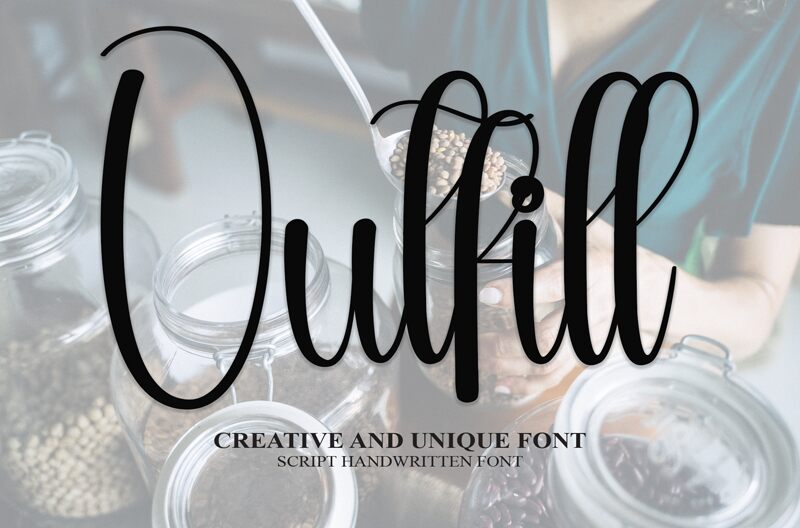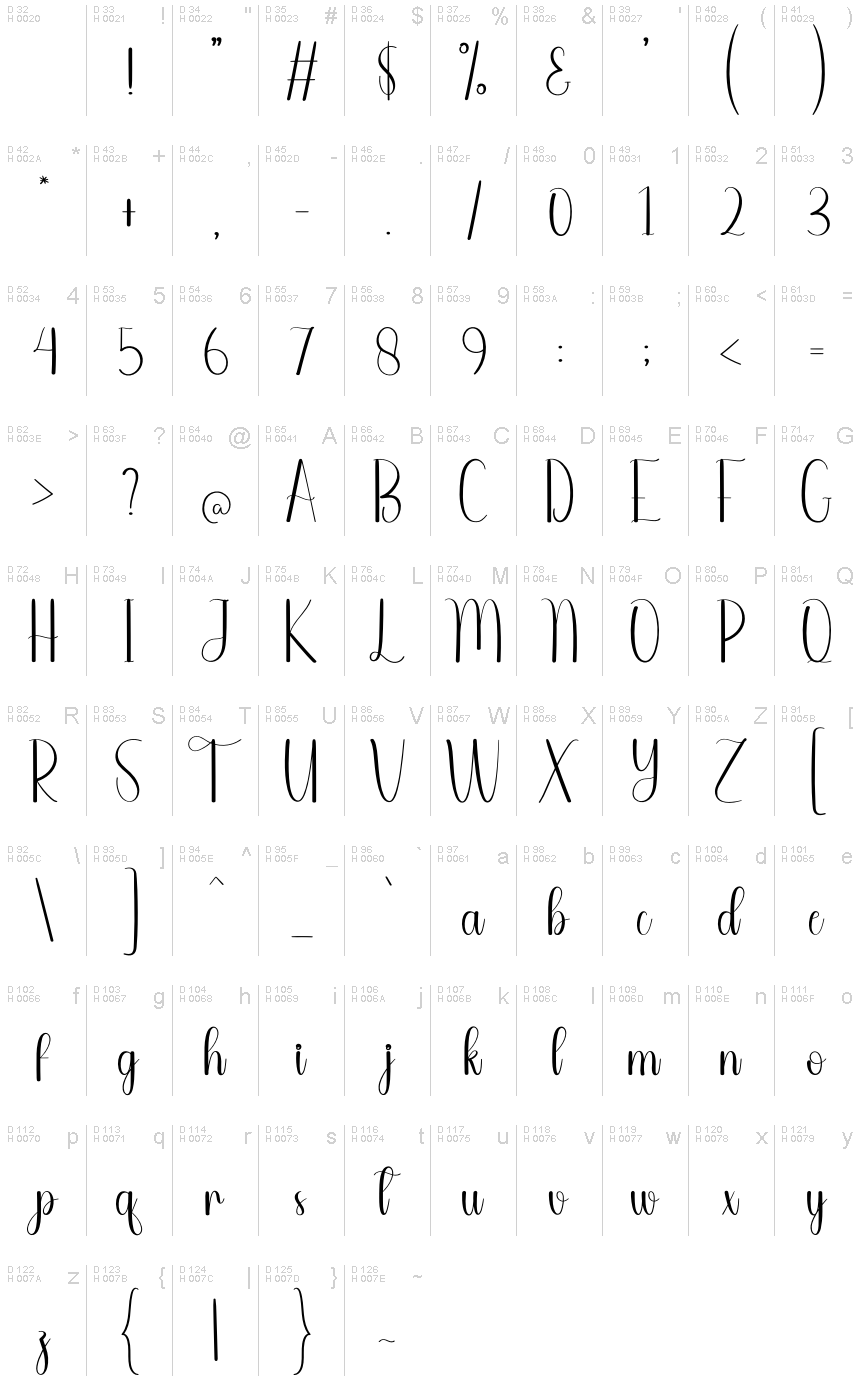
Outfill
Outfill, a captivating handwritten display font crafted by Andi Moz, exudes a sweet and friendly vibe. Its condensed width lends a playful, whimsical charm, inviting the viewer to engage with its delightful curves and flourishes. The font's organic flow and expressive strokes evoke a sense of warmth and approachability, making it a delightful choice for projects seeking a personal, handcrafted touch.
This versatile font shines in a variety of design contexts, from wedding invitations and greeting cards to branding and packaging. Its playful yet refined aesthetic lends itself seamlessly to projects that require a touch of playfulness and charm, allowing designers to create memorable and impactful visual experiences.